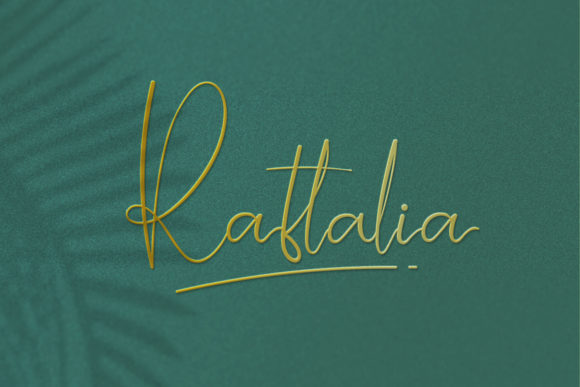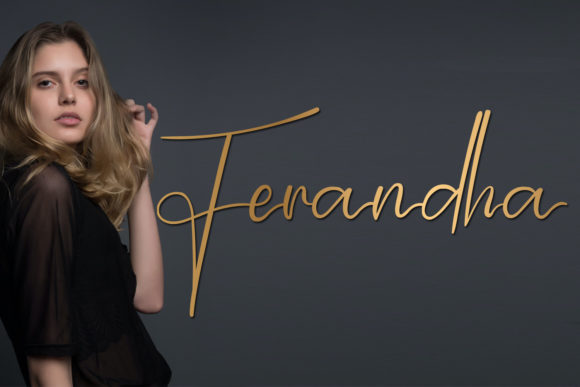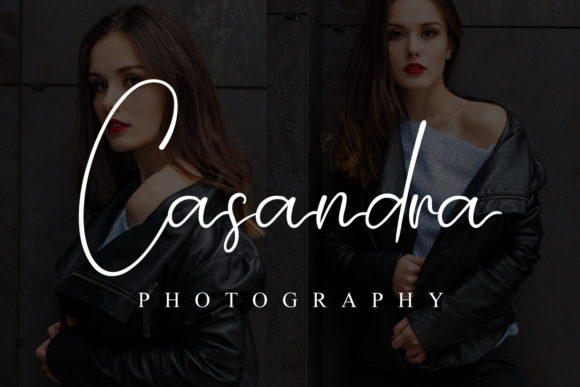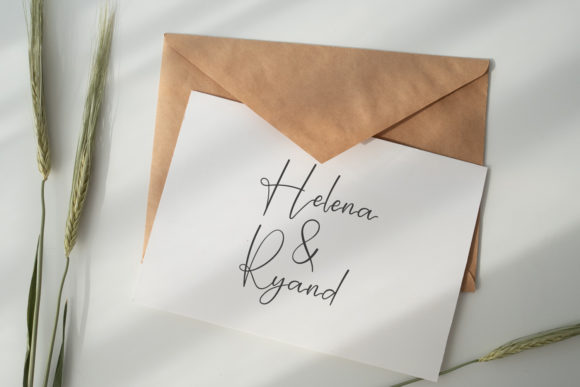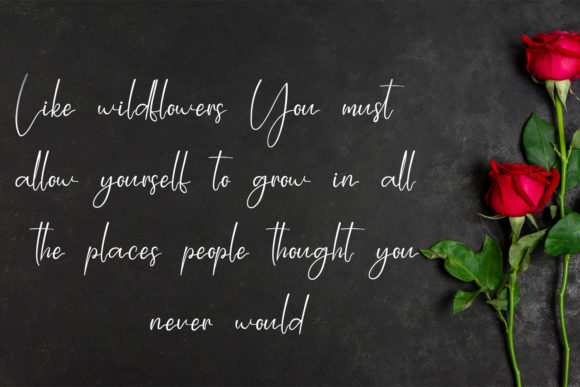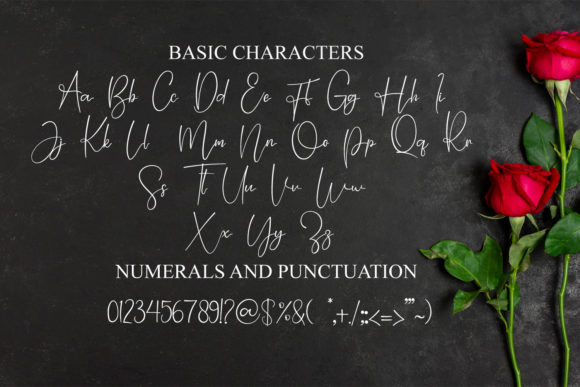
Shamantha Font
About Shamantha Font
Shamantha is a beautiful light handwritten font with a unique feel and a stunning impact. It will add a luxury spark to any design project that you wish to create!